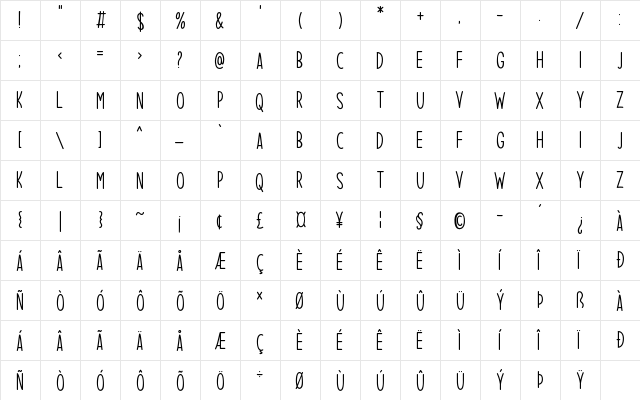
Good Mood Regular
Design Context for Good Mood Typeface
Good Mood offers clean, dependable letterforms without strong stylistic allegiance, making it a practical choice for designers who need flexibility.
Pro Tip: Pair Good Mood with a font of contrasting weight or personality to build a more expressive typographic hierarchy.